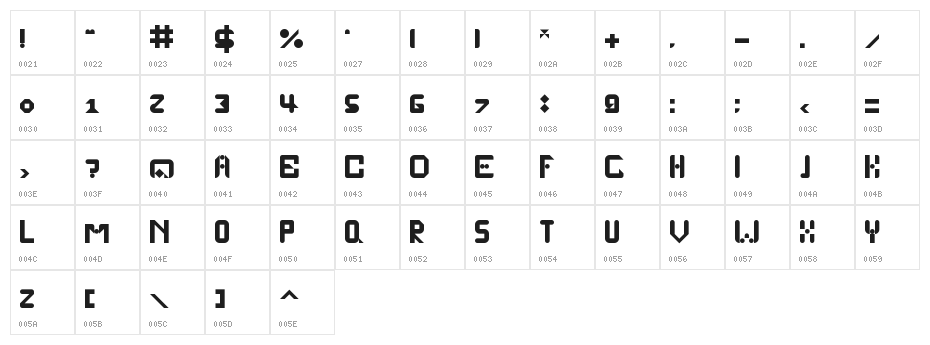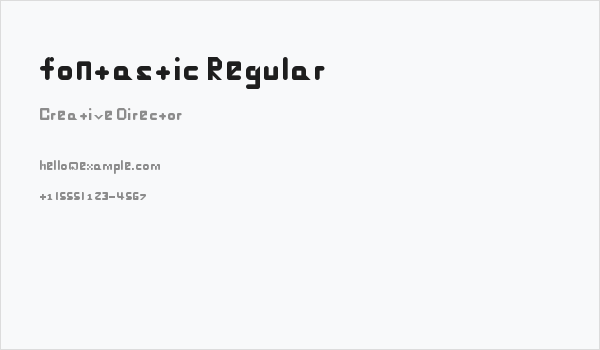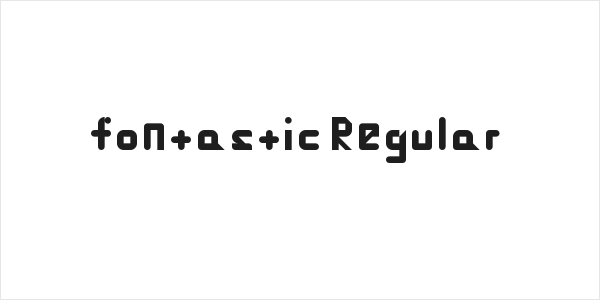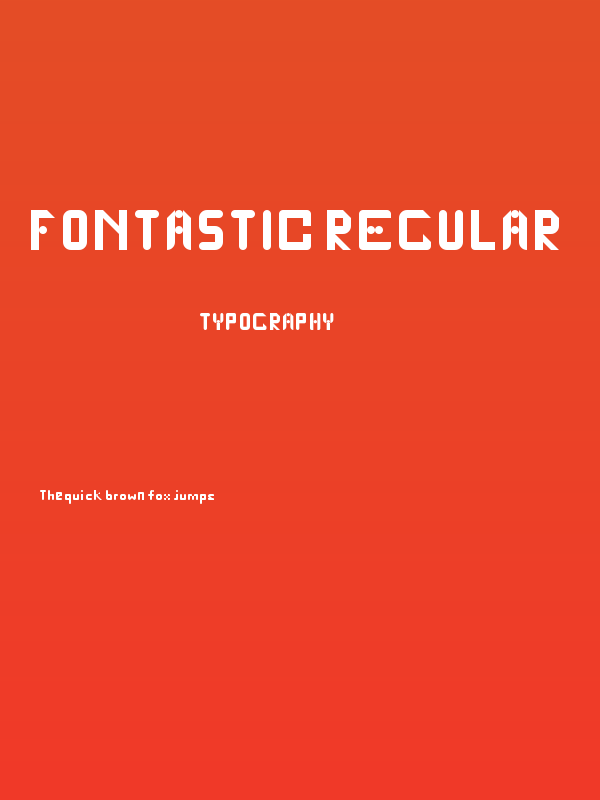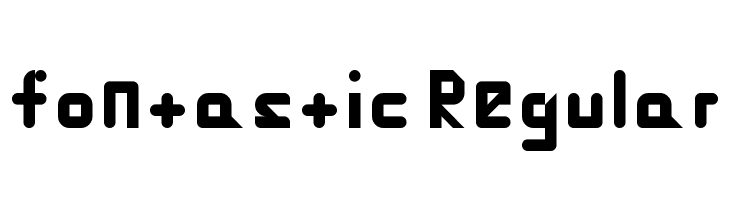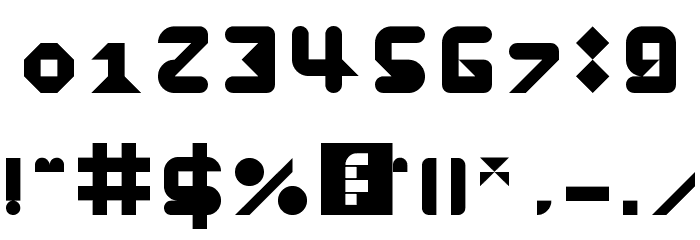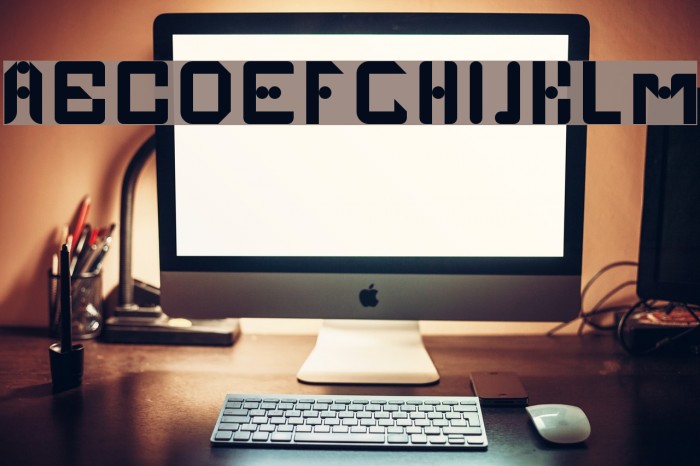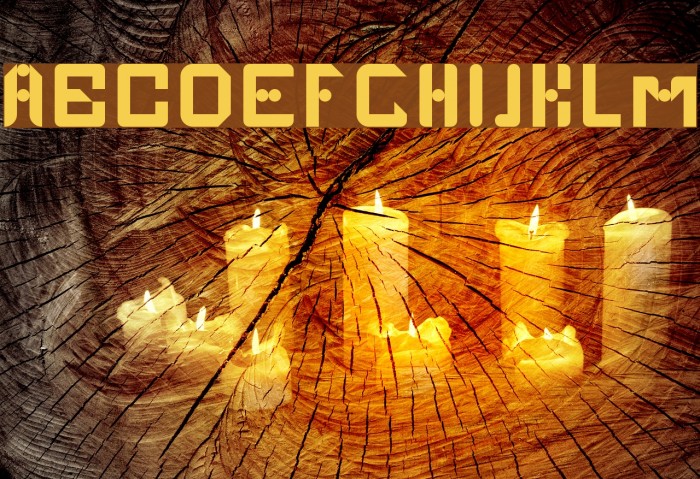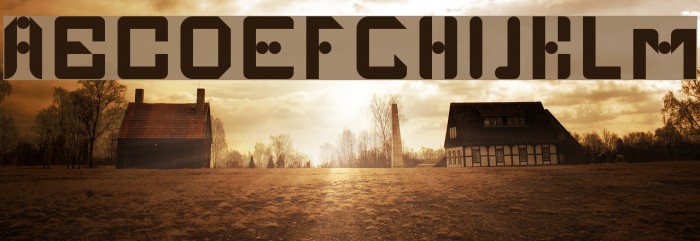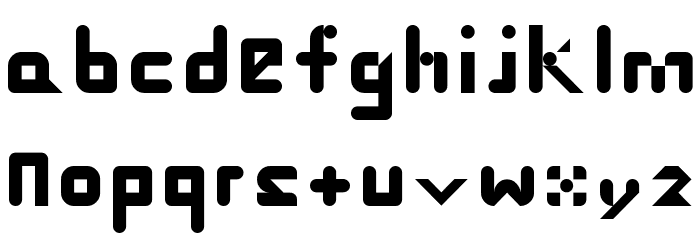
fontastic Regular Font
fontastic Regular Description
This font features a bold and geometric design with a futuristic aesthetic. The characters are constructed with a combination of straight lines and sharp angles, giving it a distinct, modern look. The use of negative space within the letters adds a unique touch, making it stand out in any design. The uppercase and lowercase letters maintain a consistent style, while the numerals and special characters are crafted to match the overall theme. This font is highly stylized, making it suitable for creative and innovative projects.
| Proposed Projects | Ideal for technology branding, sci-fi posters, video game titles, and modern art installations. |